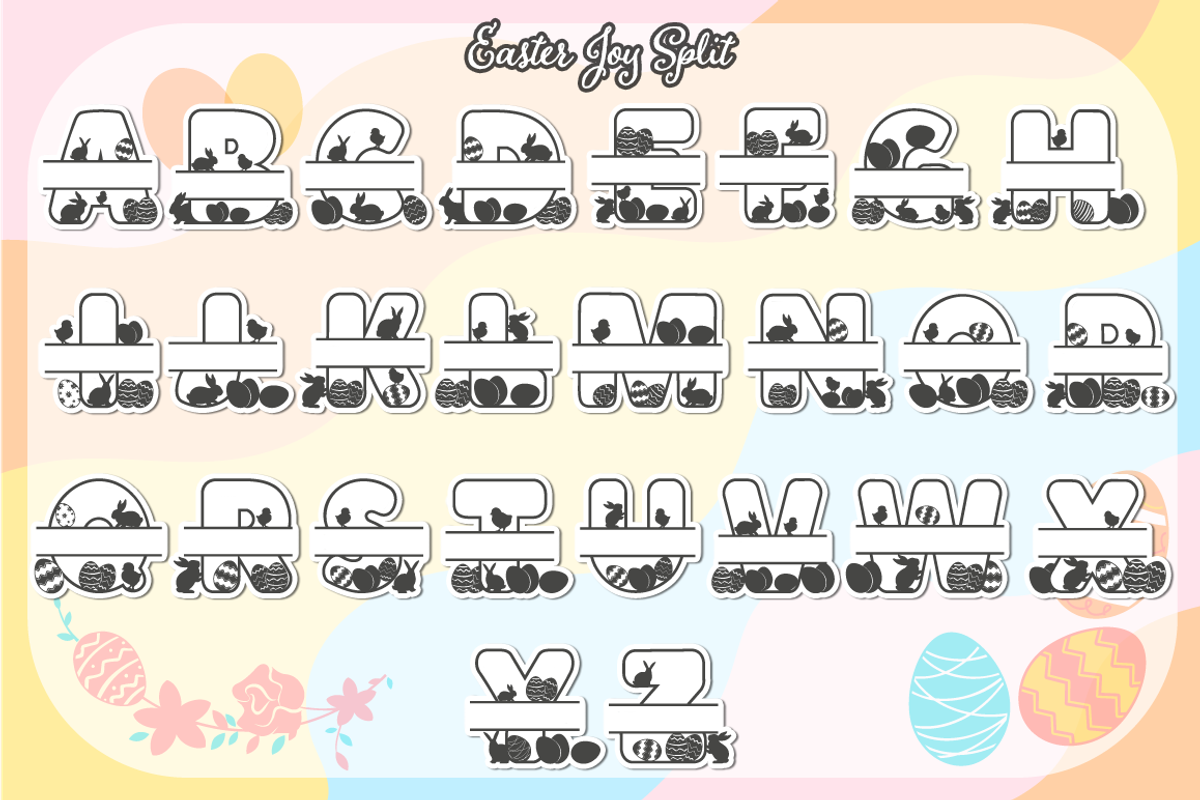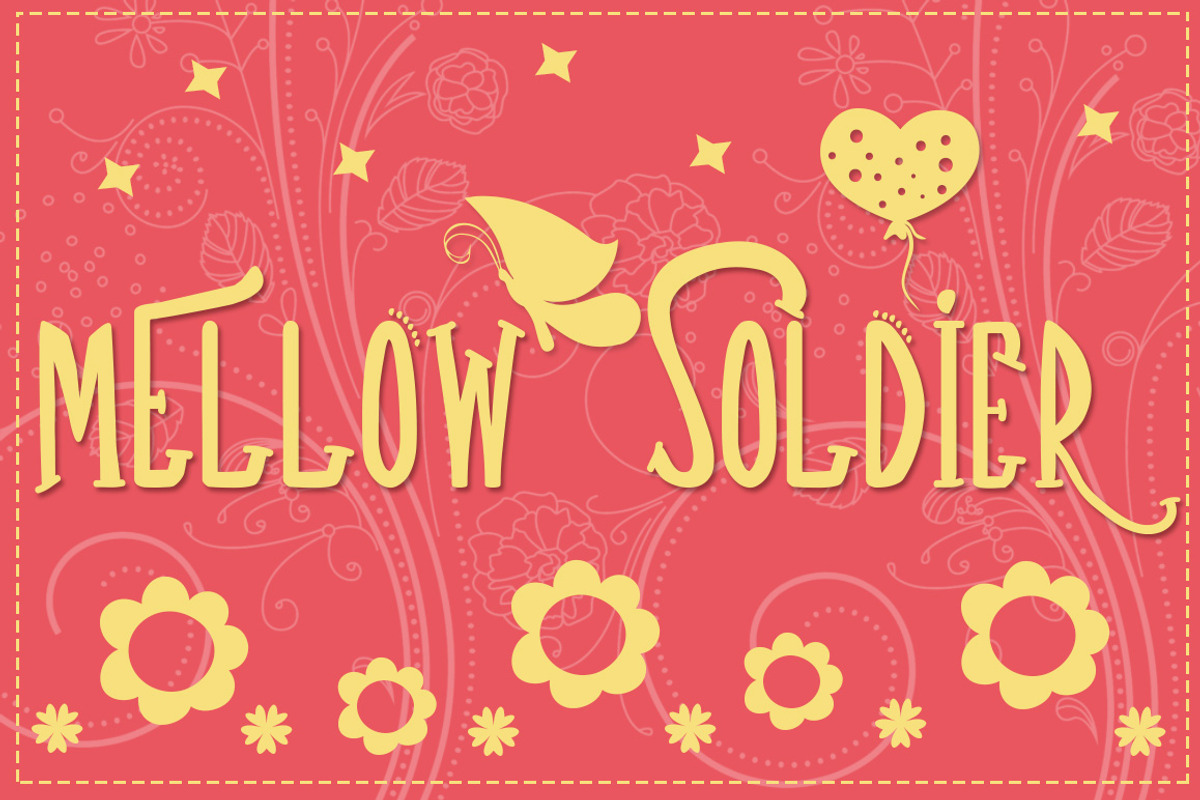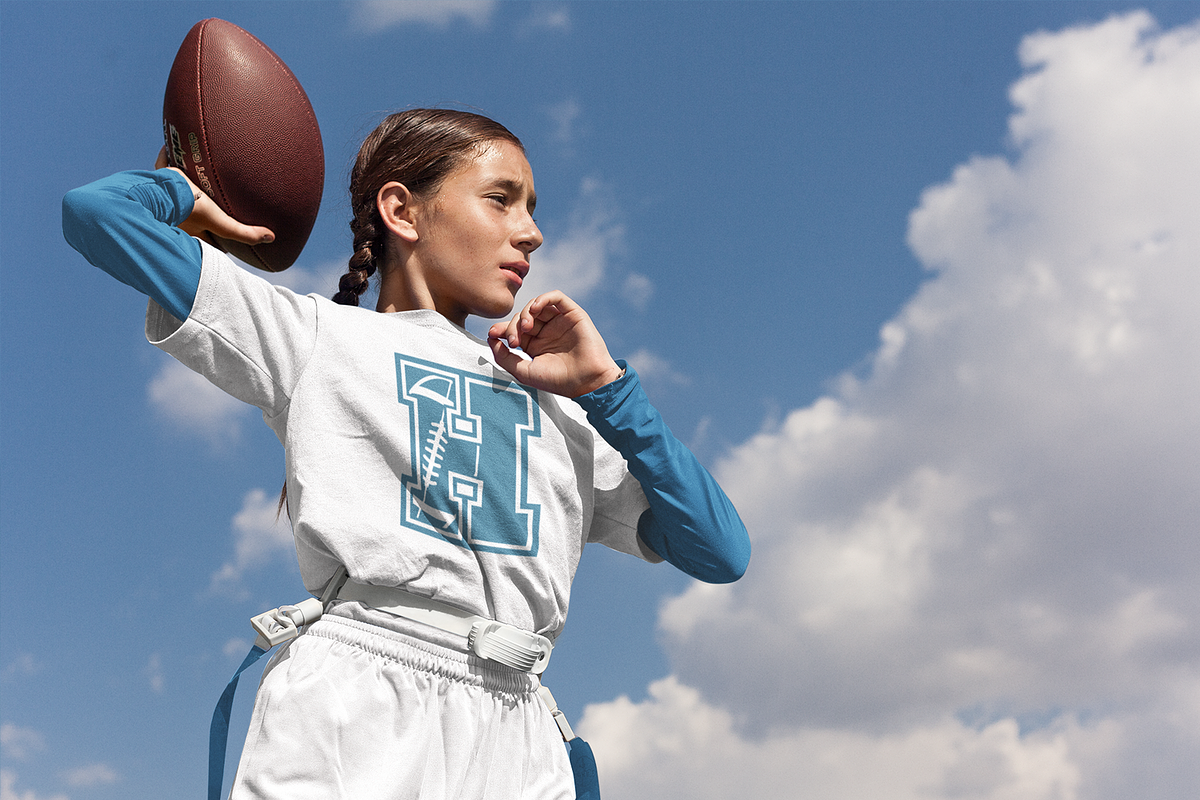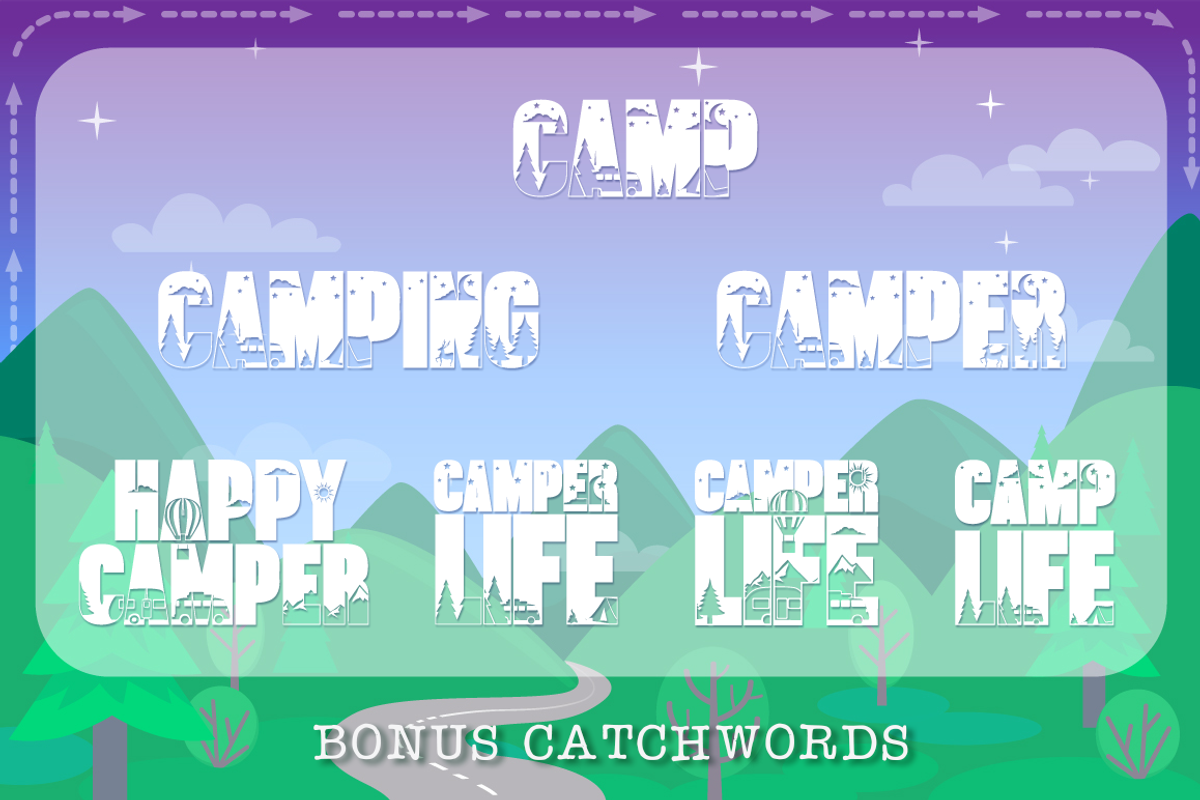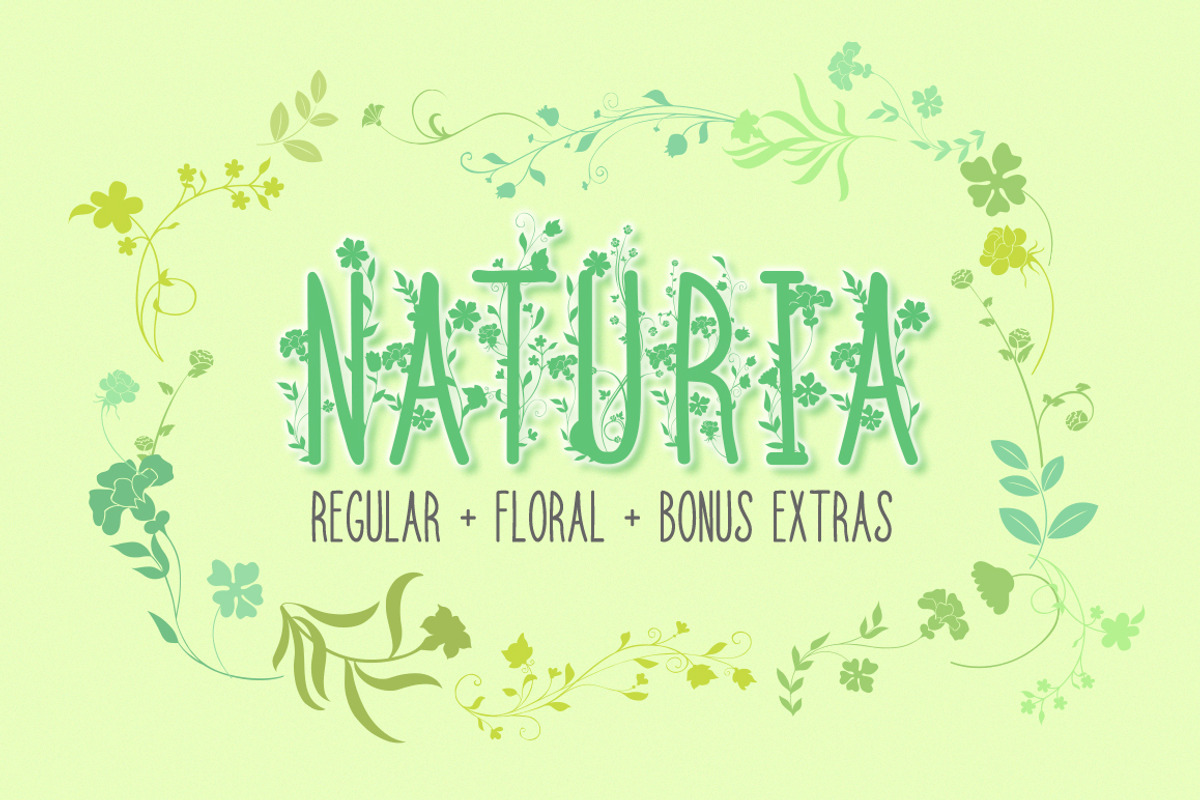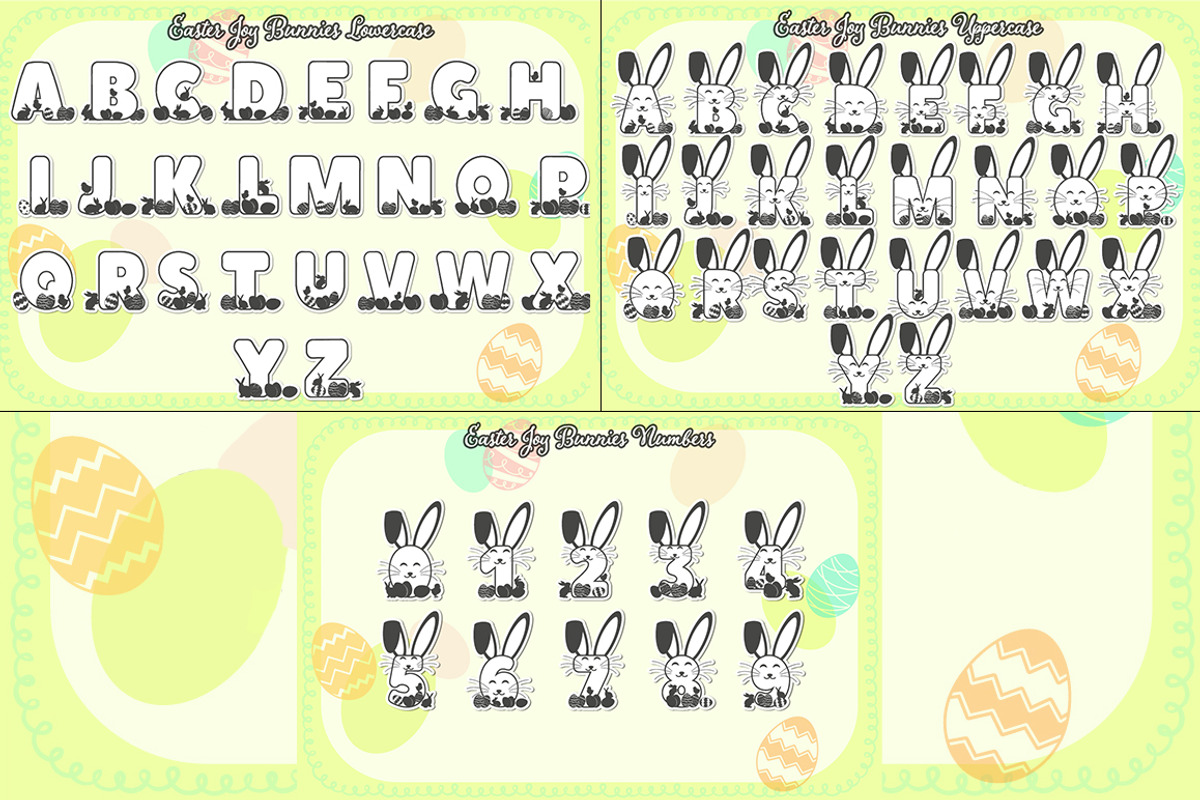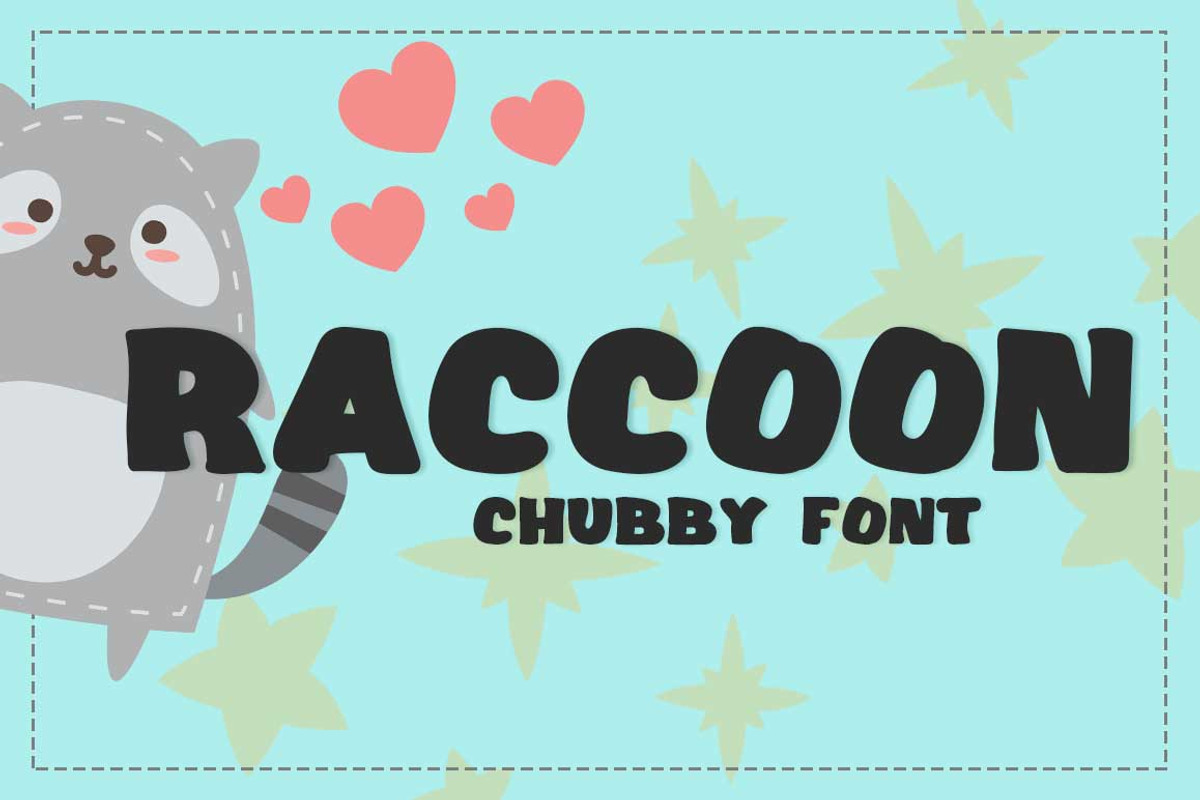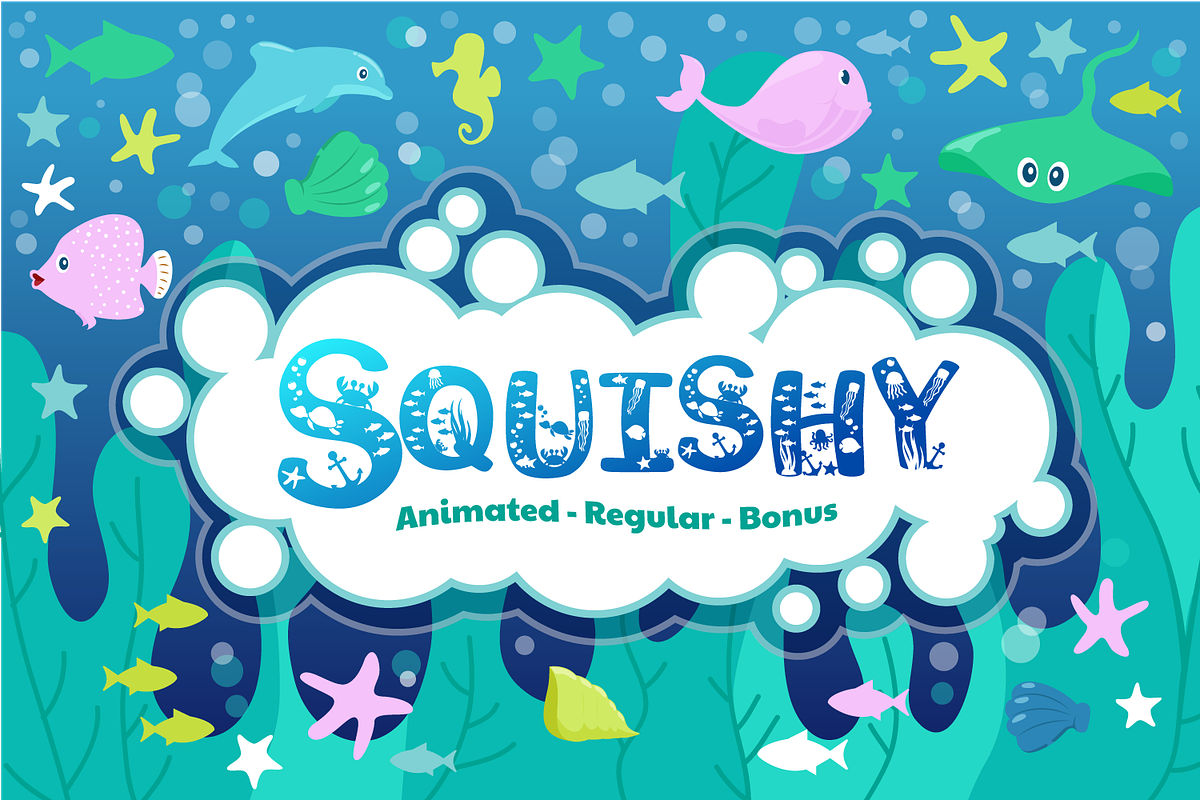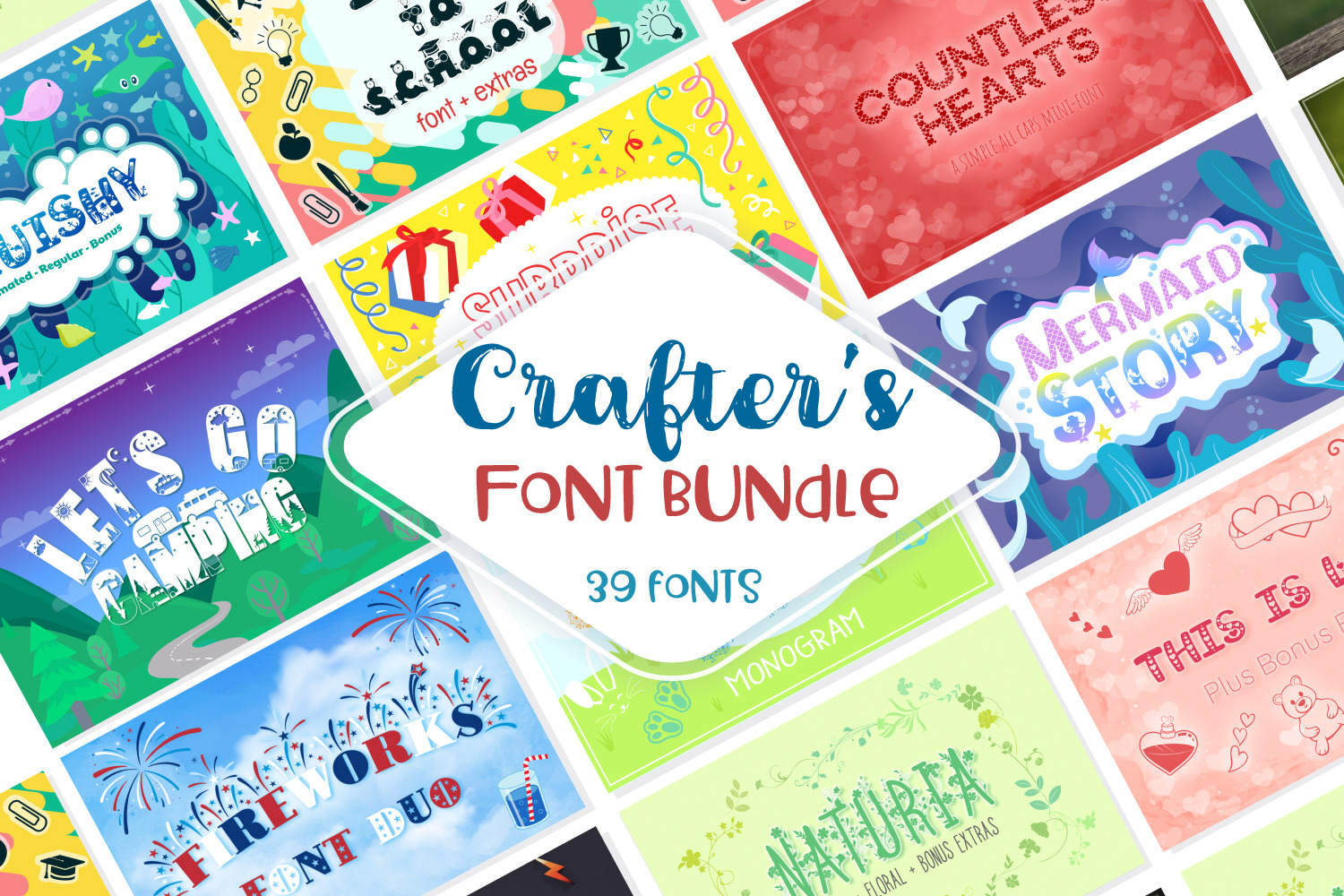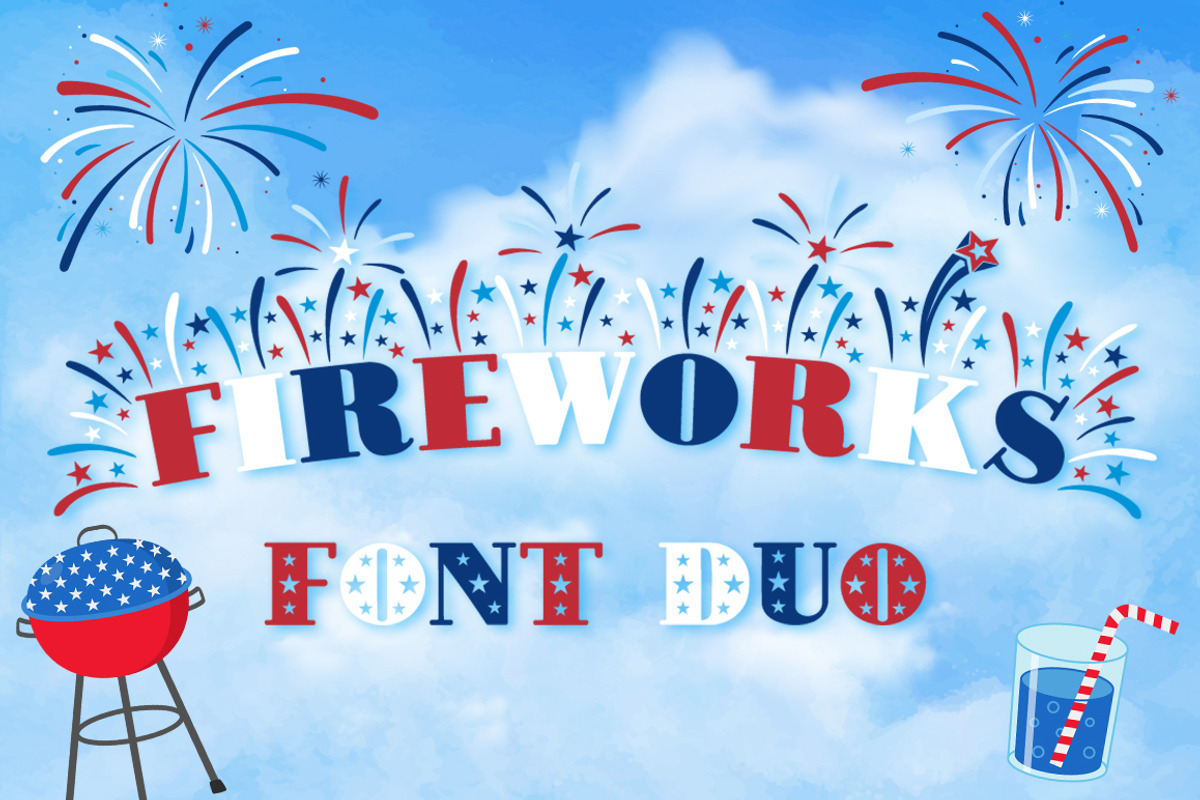
All the fonts in this bundle are created from scratch, using as little points as possible to ensure you get the best results with minimum difficulty. Optimized for Crafters with Cricut Design Space, Silhouette Studio, ScanNCut, and all major brands. The cutting takes much less time because the number of points in each letter is reduced to a minimum!
The bundle comes with a total of 39 fonts from 26 different font families.
Let's Go Camping Regular in OTF & TTF Format. Comes with A-Z letters, 0-9 numbers, and limited punctuation.
Let's Go Camping Extras in TTF Format. Comes with 7 catchwords (a-g letters) and 19 camping silhouettes.
Mermaids Animated with Regular & Animated Version. The uppercase letters are with mermaids, the lowercase are clean
Mermaid Scales
Mermaids Extras with 19 mermaids and sea creatures
Squishy with Regular + Animated version. The uppercase letters are with marine creatures, the lowercase are clean
Squishy Extras with 19 marine creatures. Access them through the A-S letters
Naturia Clean
Naturia Floral
Naturia Extras with 23 floral designs (A-W letters)
Countless Hearts
This is Love Regular
This is Love Extras with 21 love-related designs
Surprise Party Line
Surprise Party Fill
Surprise Party Brush
Fireworks Regular
Fireworks Left
Fireworks Right
Bonus extras at following glyphs: @ # $ % ^ &
Christmas Mornings Regular
Christmas Mornings Clean
Christmas Mornings Extras
Star-Studded Font
Back to School
Back to School Extras with 24 elements
Raccoon Font
Mellow Soldier Font
Mellow Soldier Extras with 26 elements
Bunny Hop Monogram
Bunny Hop Split
Easter Joy Bunnies
Easter Joy Split
Easter Joy Extras with 22 glyphs
Sport Champs Regular
Sport Champs Simple
Sport Champs Baseball
Sport Champs Basketball
Sport Champs Football
Sport Champs Golf
Sport Champs Soccer
Sport Champs Volleyball